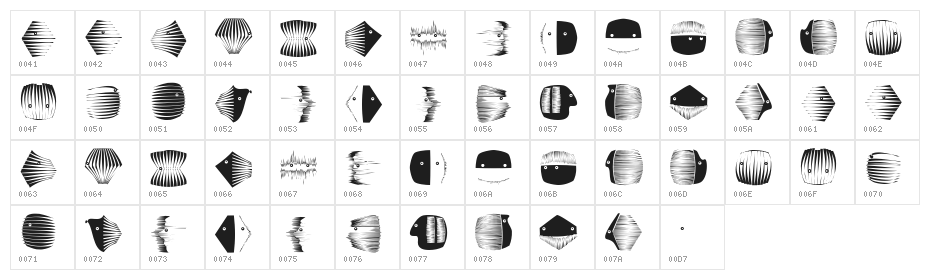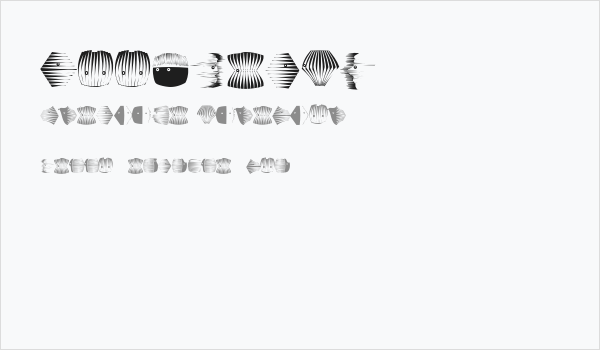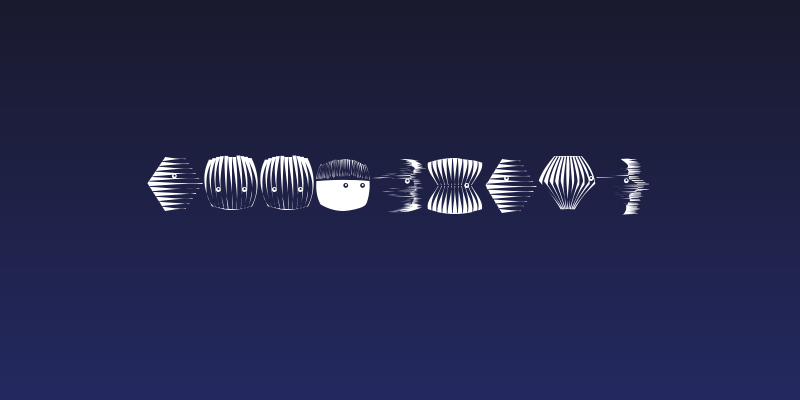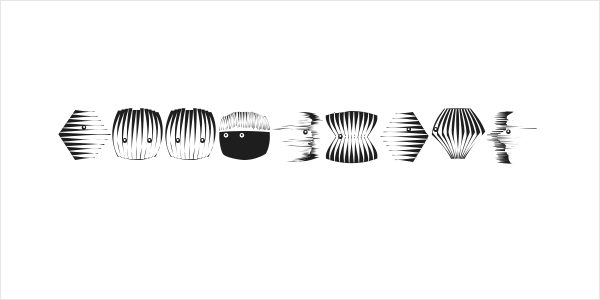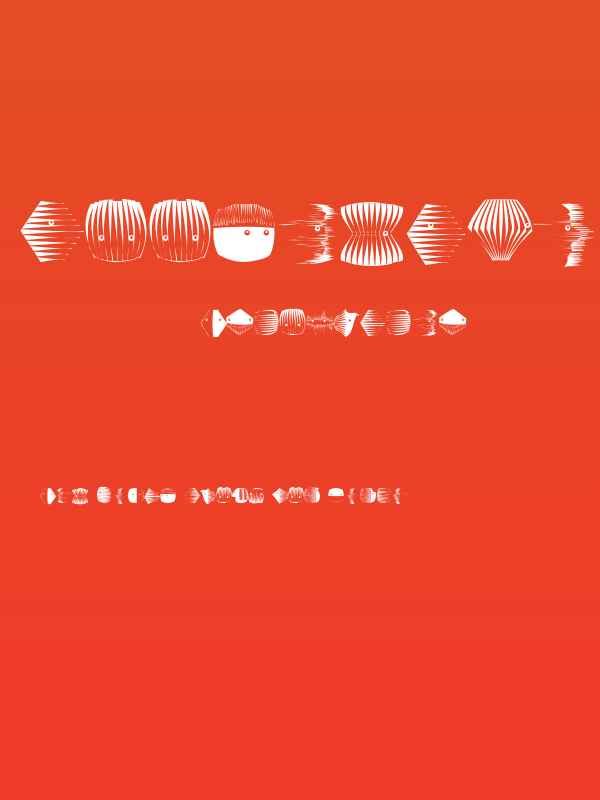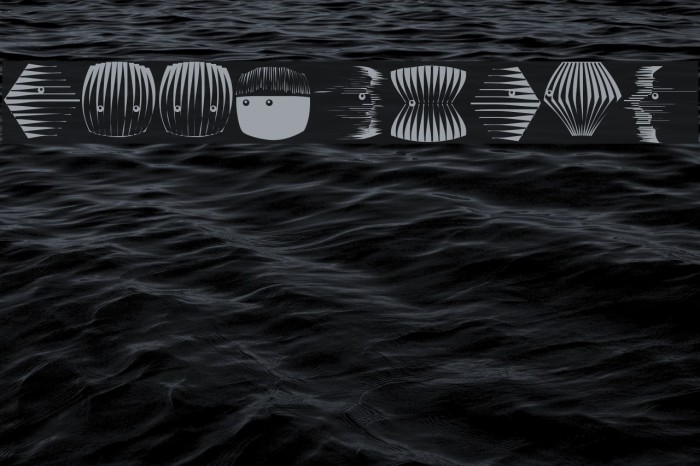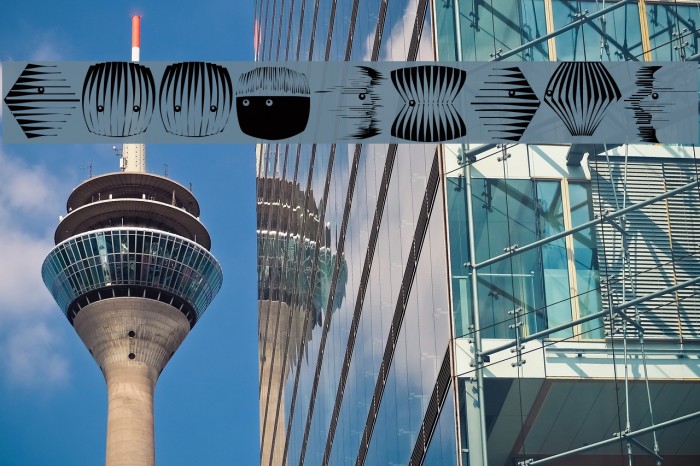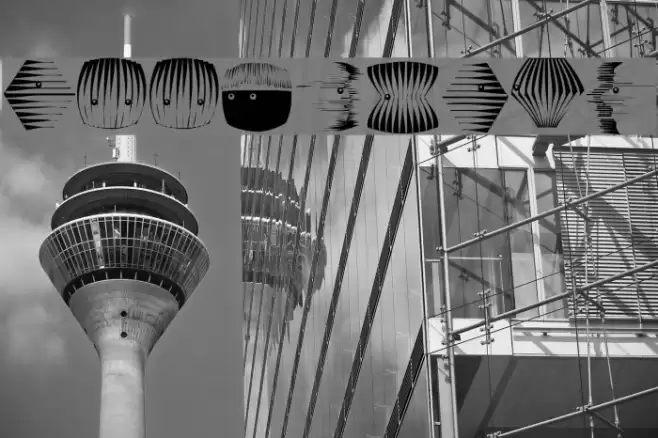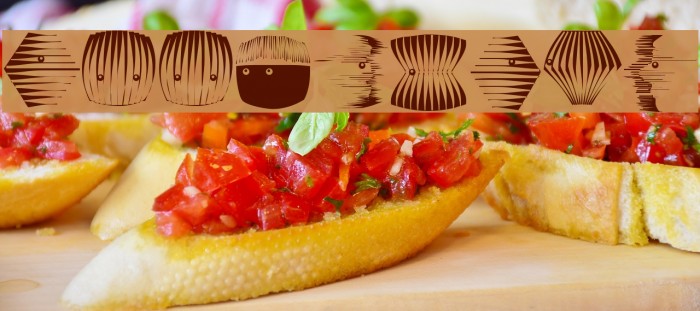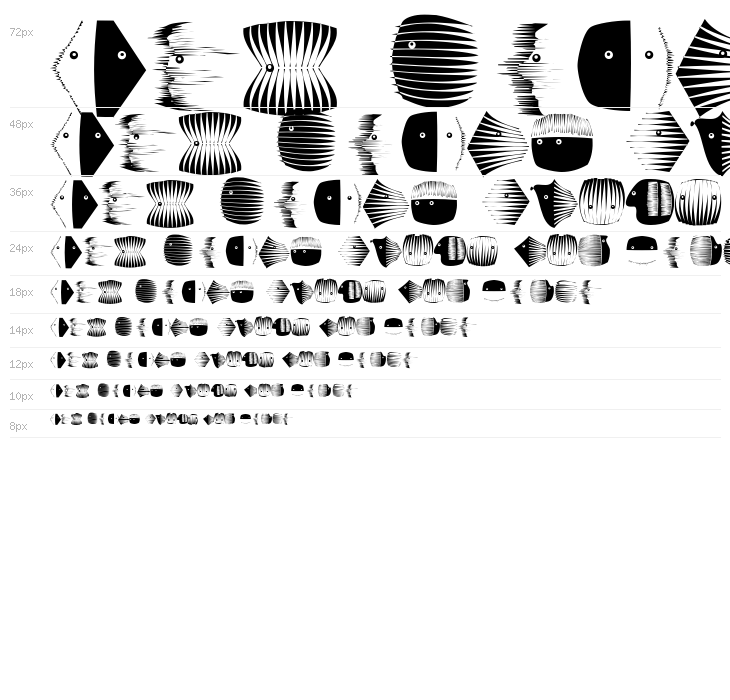
BookHeads Font
BookHeads Description
This design features a series of abstract, fish-like shapes that are arranged in a sequence. Each character is uniquely stylized, with varying patterns and textures that resemble scales or fins. The overall appearance is artistic and decorative, with a strong emphasis on visual rhythm and movement. The shapes are bold and graphic, making them stand out distinctly against any background. This design is not a traditional font but rather a collection of artistic symbols that evoke a sense of fluidity and nature.
| Use Case | Logos, Decorative elements |
| Proposed Projects | Ideal for artistic projects, marine-themed designs, or decorative borders. |